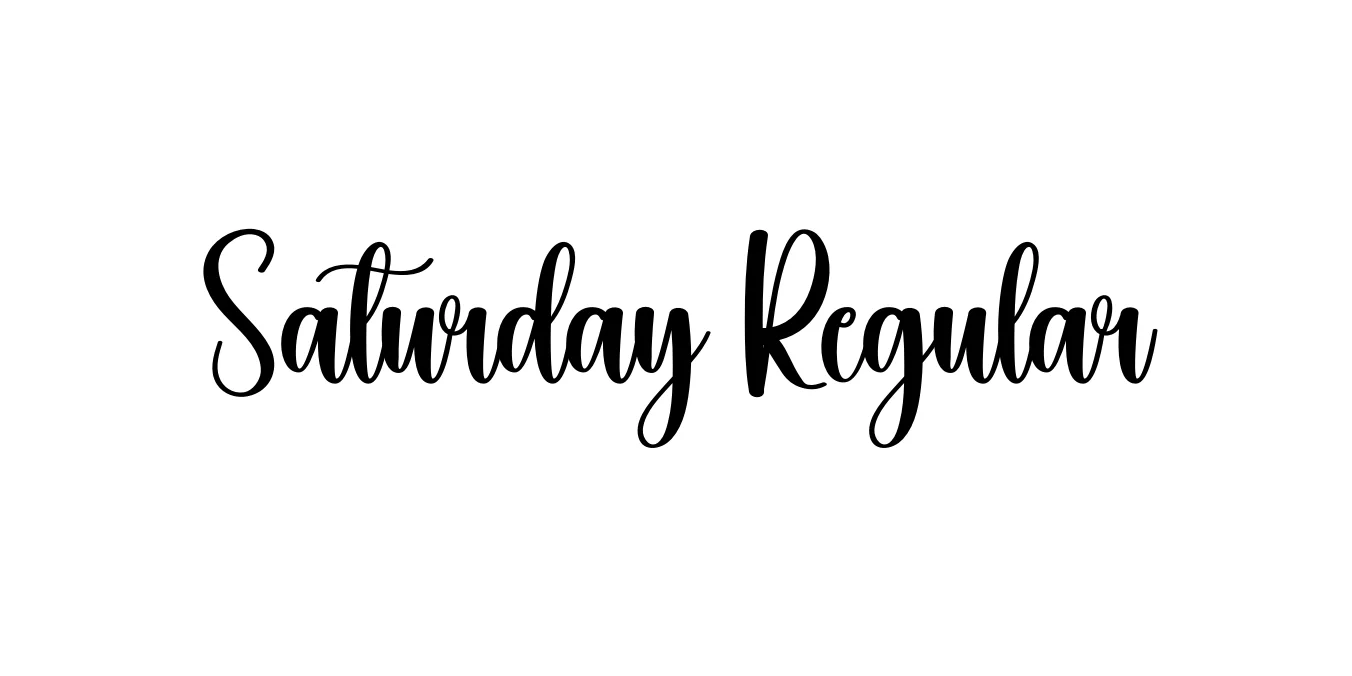
Saturday Regular
Designed by Nicky Laatz
Saturday Regular is a carefree, brush-textured handwritten script font designed to capture the essence of a relaxed weekend. Created by the renowned designer Nicky Laatz, this typeface features bouncy characters and organic strokes that provide an authentic, custom-made feel to any creative project. Its fluid lines and natural flow make it a standout choice for designers aiming to achieve a modern, approachable aesthetic without sacrificing professional quality.
Technically, the font is built with a comprehensive set of glyphs that include numerous ligatures and alternates, allowing for a truly unique typographic experience. It is specifically engineered to look best in lifestyle branding, where its human touch can shine. When paired with minimalist sans-serif fonts, Saturday Regular creates a sophisticated balance that is highly effective for contemporary digital and print media.
Saturday Regular Best Uses
Ideal for creating unique logos and brand identities for lifestyle and fashion labels.
Perfect for eye-catching Instagram quotes, stories, and creative posts.
Great for personalized wedding invitations, greeting cards, and event signage.
Works well for catchy headlines and subheadings in lifestyle magazines and blogs.